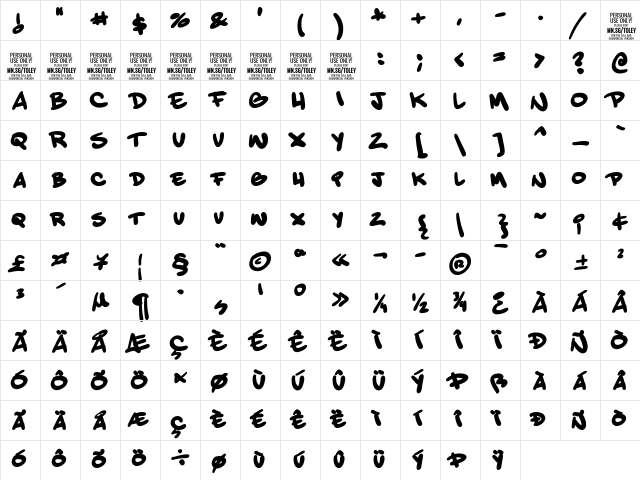
Toley Hand PERSONAL USE ONLY Regular
| Foundry | Mans Greback |
| Designer | Mans Greback |
Design Context for Toley Hand PERSONAL USE ONLY Typeface
Toley Hand PERSONAL USE ONLY flows with the natural rhythm of handwritten lettering, making it ideal for designs that call for warmth and personal expression.
Font Pairing: Combine Toley Hand PERSONAL USE ONLY with a simple geometric sans for maximum contrast — the tension between flowing curves and clean structure is a classic typographic pairing.
Pro Tip: Pair Toley Hand PERSONAL USE ONLY with a clean sans-serif for supporting text. The contrast between fluid script and geometric structure creates an elegant typographic hierarchy.